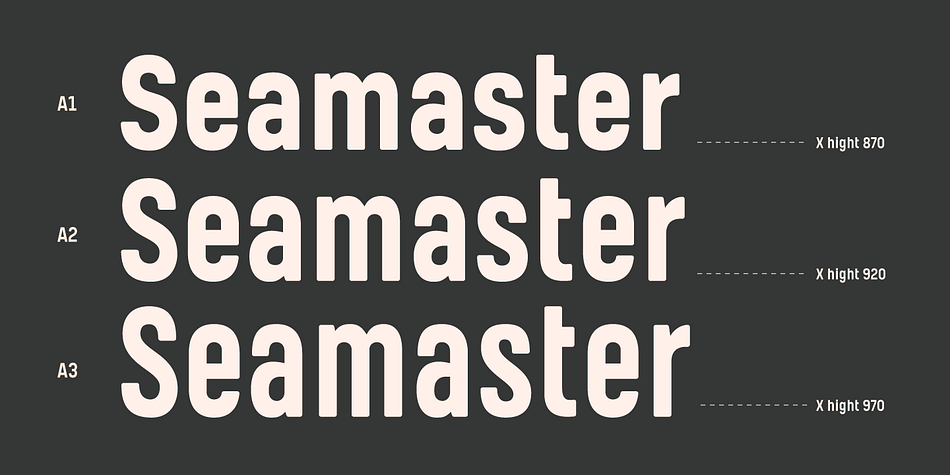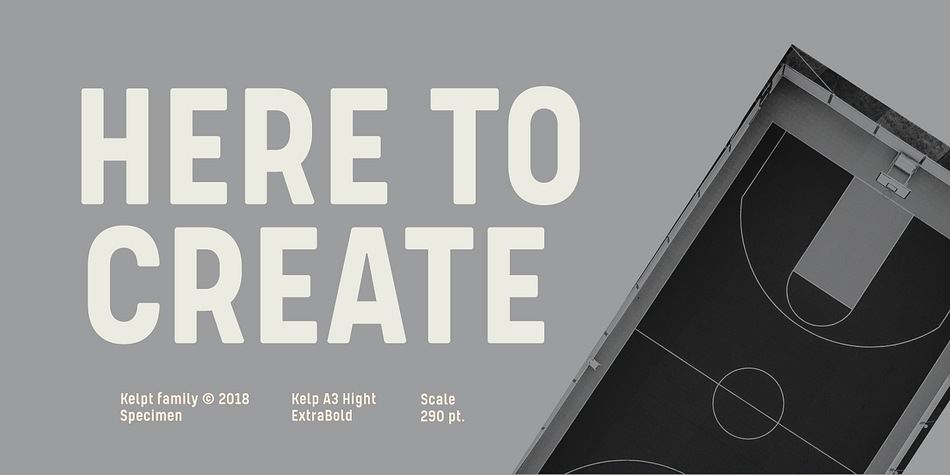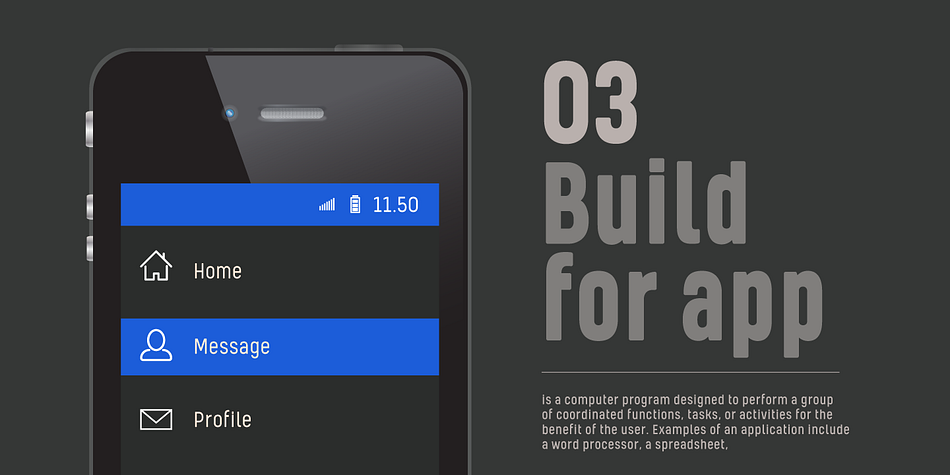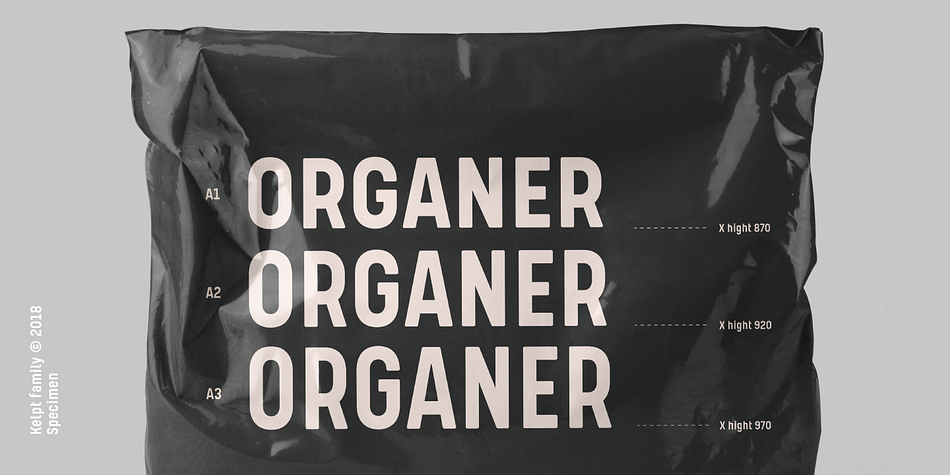
Kelpt
Designed by Chatnarong Jingsuphatada, Kelpt is a sans serif font family. This typeface has fifty-four styles and was published by Typesketchbook.
Kelpt font is an extra large super family of 54 fonts! Kelpt has such a big abundance of contrast, styles, weights, X-Hight. Typesketchbook consists of a very usable, clean and modern sans typeface with rounded corner. The font looks clean and geometric but it’s designed with unusual stylistic features to give the Kelpt font a special and unique touch. The complete Kelpt type family includes 9 weights with italic and X-Hight (A1-A3) versions for each of them all in all 54 fonts for a multifunctional usage, especially for cooperative work, such as website, magazine, editorial, publishing , as well as packaging.